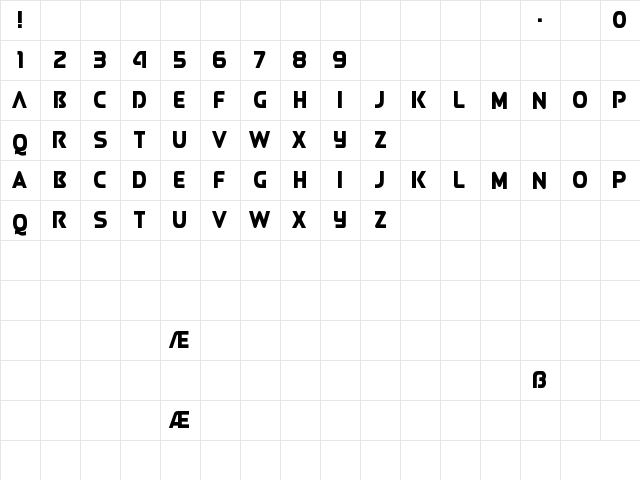
Queen of Camelot 2.0 Regular
Design Context for Queen of Camelot 2.0 Typeface
Queen of Camelot 2.0 is a composed and adaptable typeface that performs quietly and consistently across a wide range of design contexts.
Pro Tip: Use Queen of Camelot 2.0 in both headline and body roles to test its range before committing to a single application.